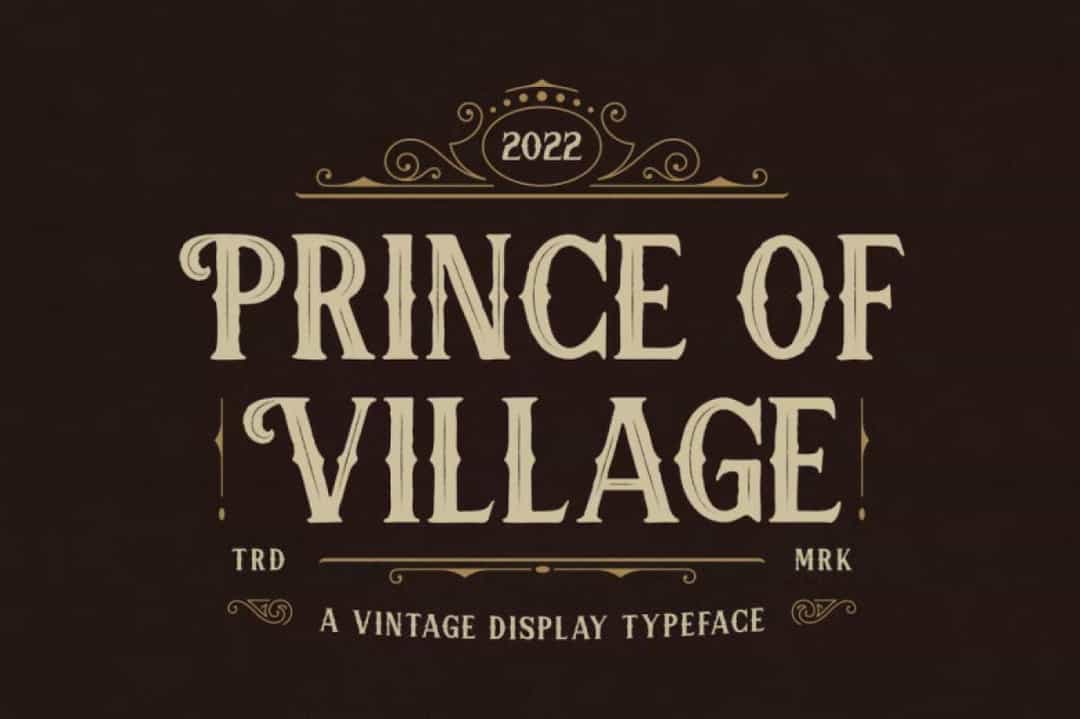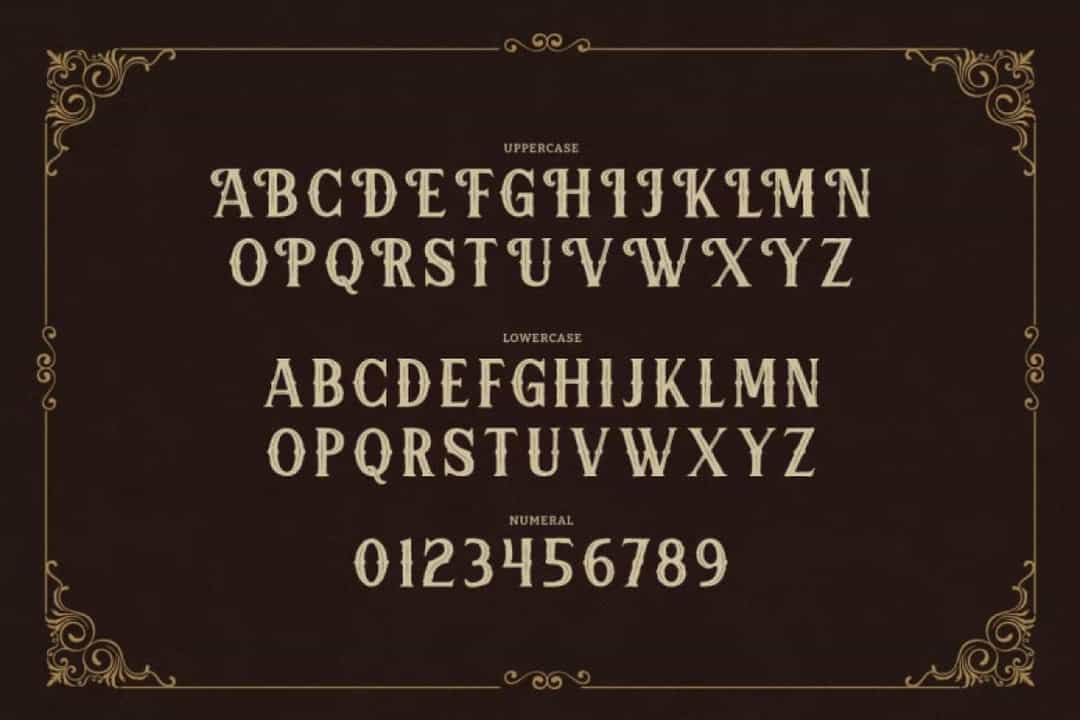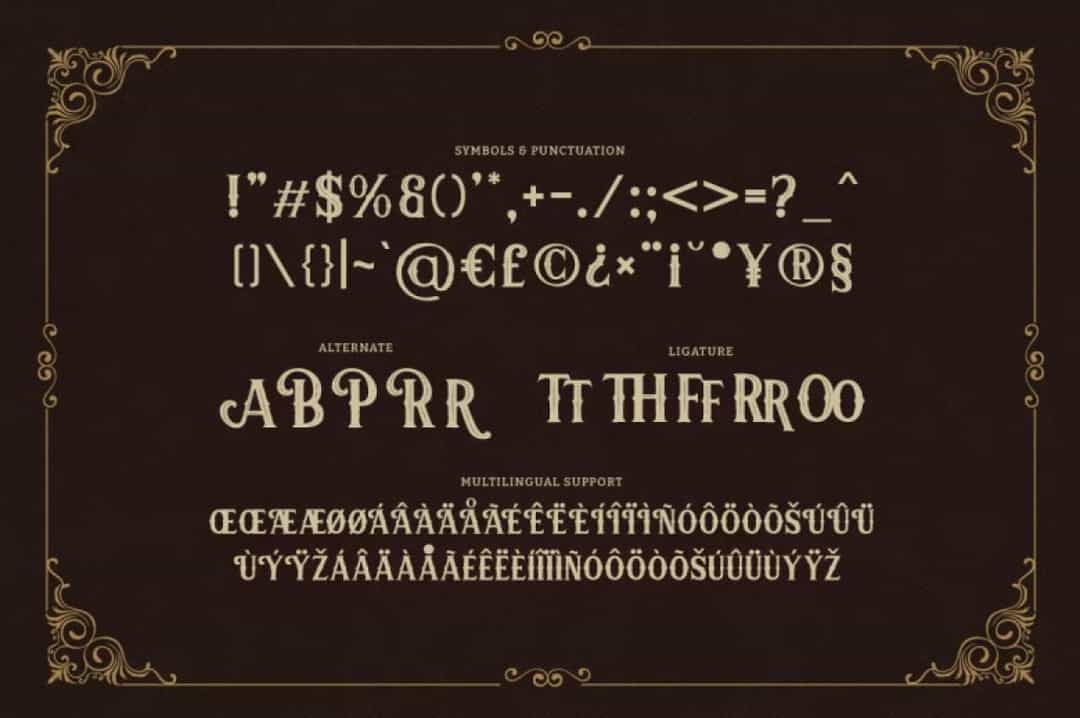
Prince Of Village is an antique show font designed for use in creating various designs. It can be used for headings, logos and signage in cafes and restaurants from the past letterhead, signage labels posters news badges posters etc. Additionally, as it is PUA encoded you can access all glyphs and swashes easily!